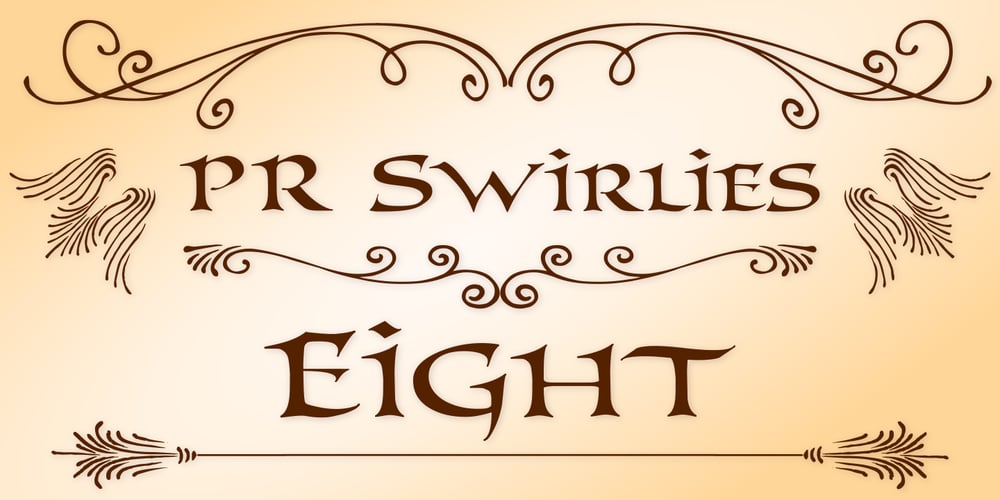
PR Swirlies 08 Font Family was designed by Peter Rempel and published by PR Fonts. PR Swirlies 08 contains 1 styles and family package options. This font is a collection of simple calligraphic ornaments suitable for invitations, gift tags, and anything that can benifit from a “spoonful of sugar” visually. This font includes fewer line fillers, and more “ferns and fans” than our previous swirlies.